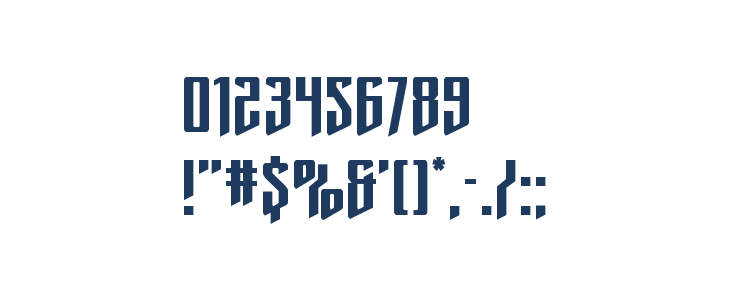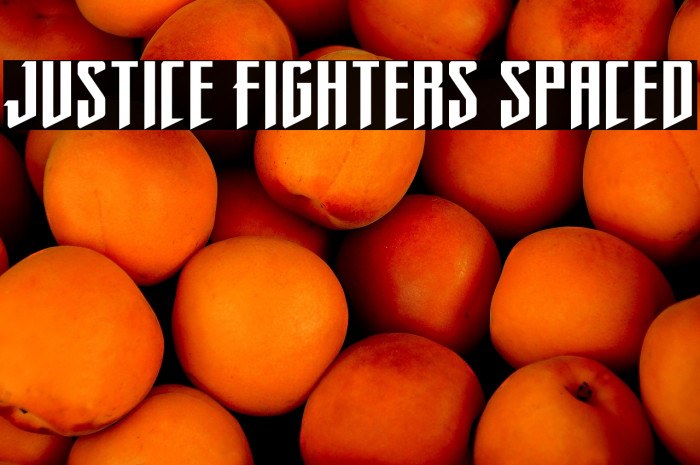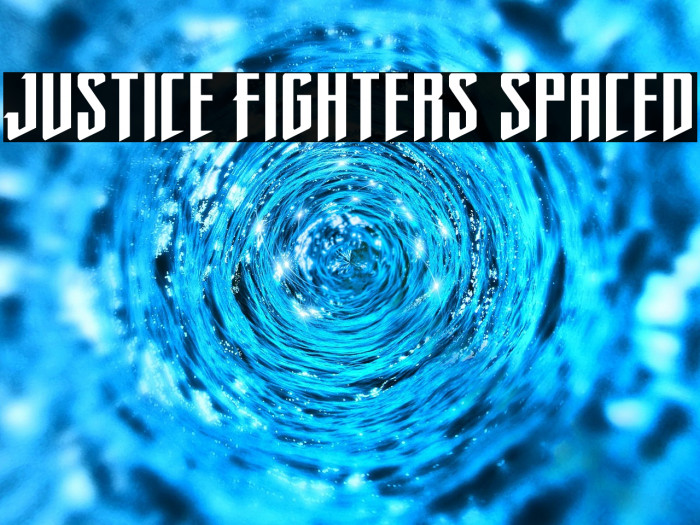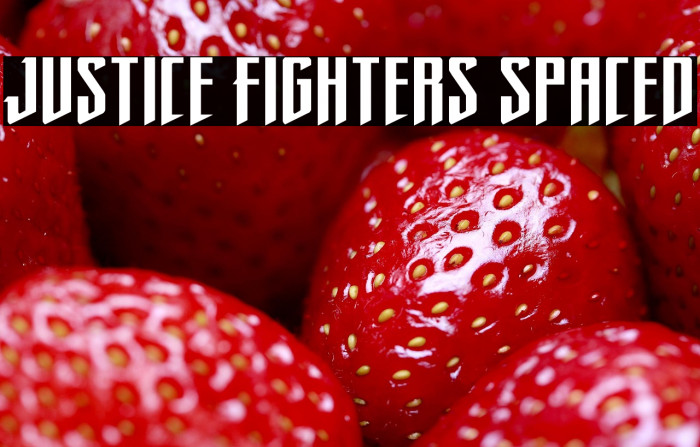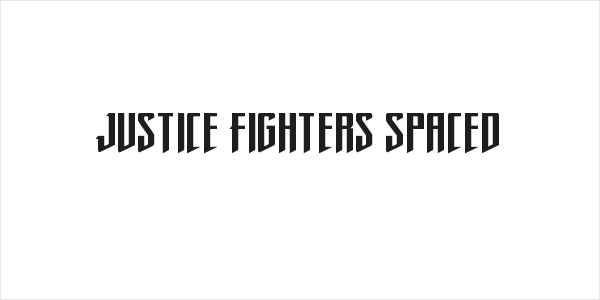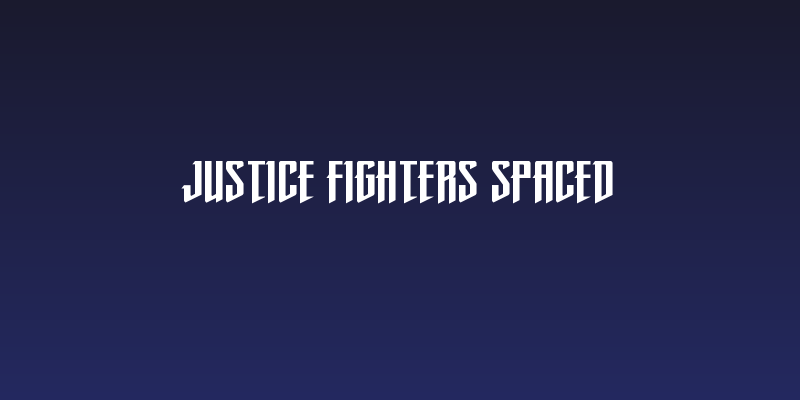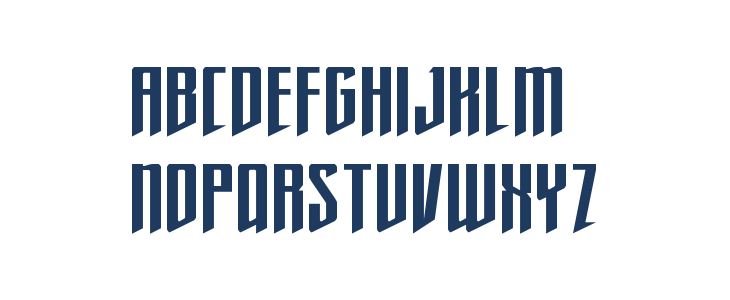
Justice Fighters Spaced Font
Justice Fighters Spaced Description
This font features a bold, angular design with sharp edges and a strong presence. The characters are tall and narrow, giving a condensed appearance that emphasizes verticality. The uppercase letters are particularly striking, with a futuristic and dynamic style that suggests movement and energy. The numbers and special characters maintain this bold aesthetic, ensuring consistency across all glyphs. This font is ideal for projects that require a strong, impactful visual statement.
| Proposed Projects | Ideal for posters, video game titles, branding for tech companies, and any design needing a strong, impactful presence. |